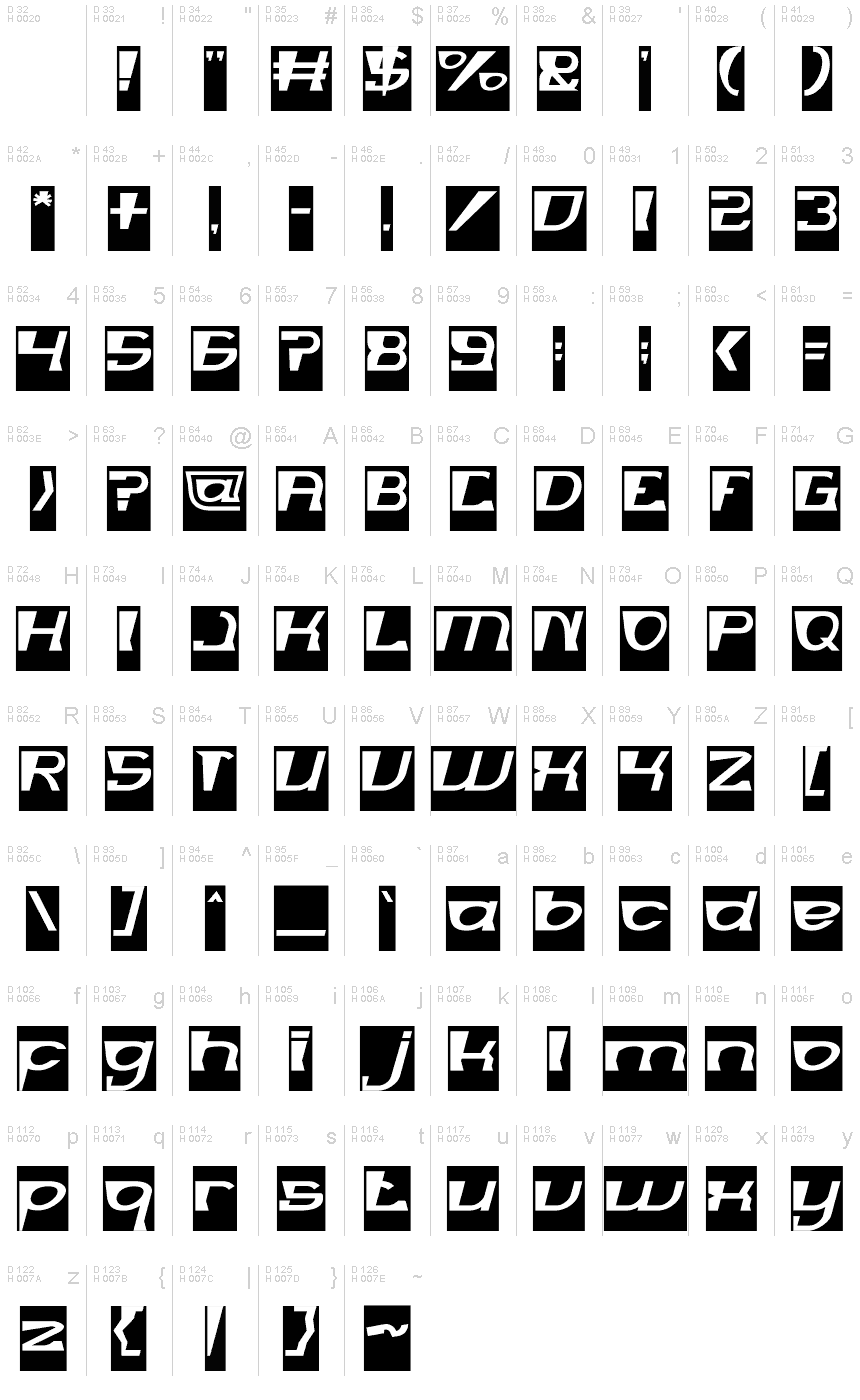
MERCURY-Inverse
Mercury Inverse, a bold and eye-catching font created by the talented designers at Weknow, exudes a distinct techno-inspired aesthetic. This expanded display font commands attention with its striking negative space and seamless letter forms. The stylized letterforms and dynamic composition evoke a sense of futuristic energy, making this font an intriguing choice for projects seeking a bold, modern, and technologically-driven visual identity.
This versatile font can be leveraged across a diverse range of applications, from sleek product packaging and digital interfaces to captivating event branding and cutting-edge editorial design. Its expanded width and bold presence make it an impactful selection for headline treatments, while the distinct negative space lends itself well to attention-grabbing logo designs and typographic-focused compositions.